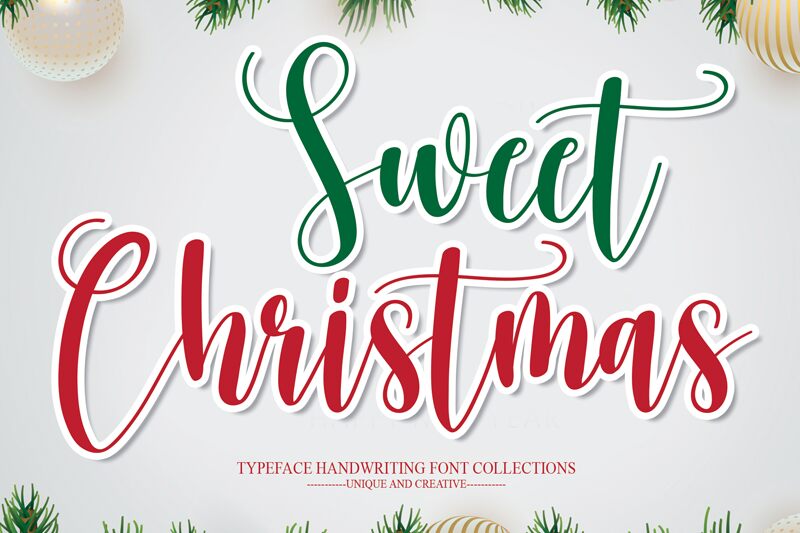
Sweet Christmas
Sweet Christmas is a stunning calligraphy font designed by scratchones. With its semi-light weight and semi-condensed width, this font gives off an elegant and refined look. Perfect for any project that requires a touch of sophistication, Sweet Christmas is ideal for wedding invitations, holiday cards, or any design that needs a delicate and stylish flourish. The charming curves and swashes of this typeface make it truly unique and eye-catching. So whether you're designing for the festive season or simply adding an elegant touch to your next project, Sweet Christmas is the perfect choice.
the latest style letters are perfect for wall displays, wedding invitations, social media post logos, advertisements, product packaging, product designs, labels, photography, watermarks, invitations, stationery, and any project that requires taste handwriting.